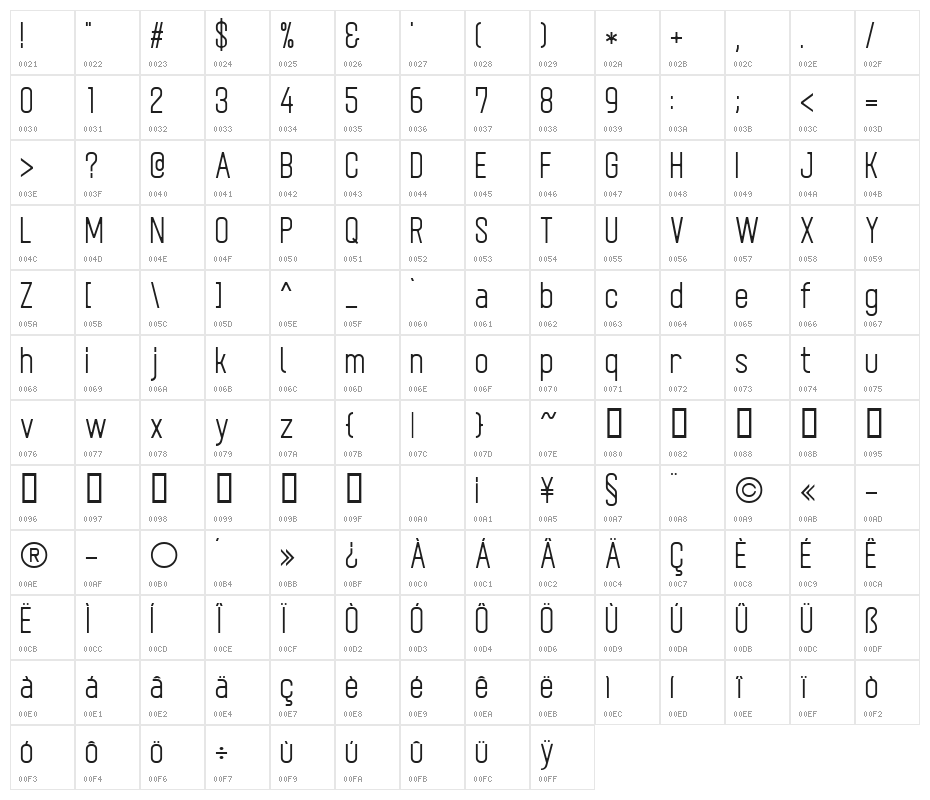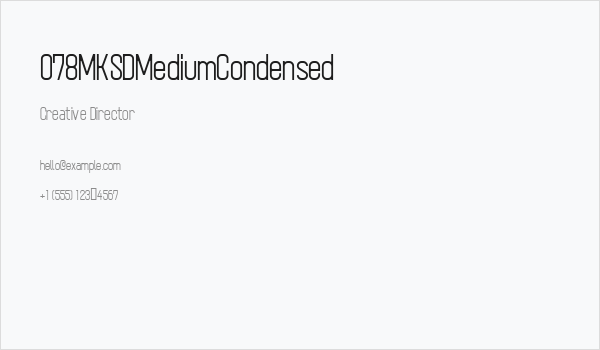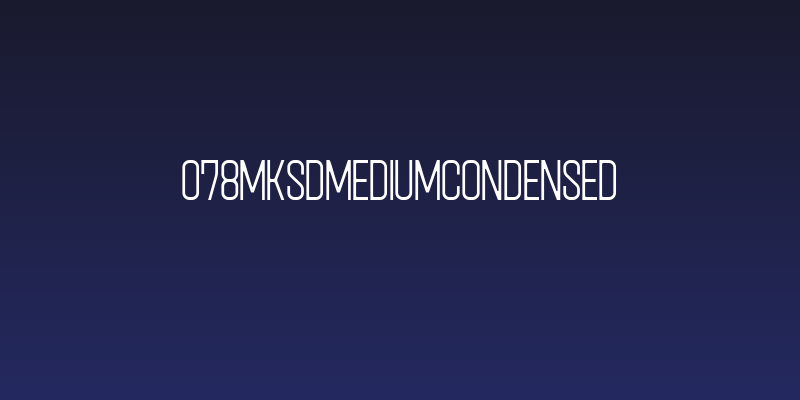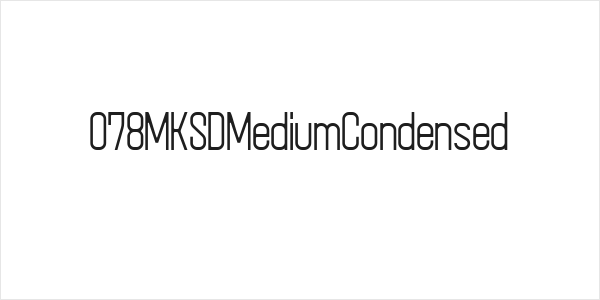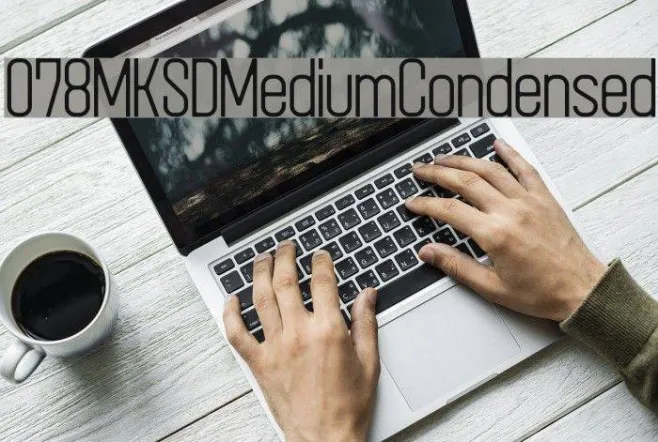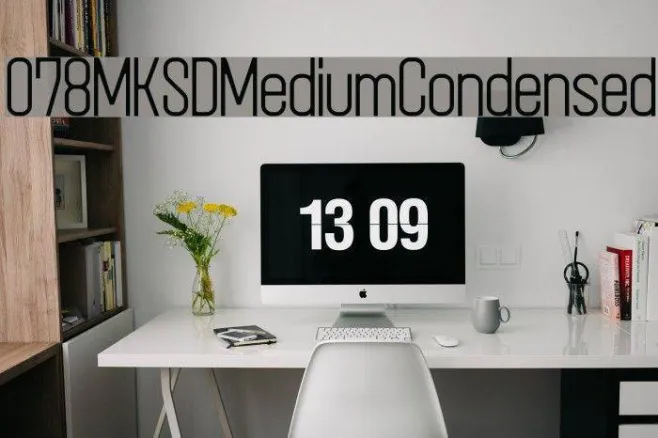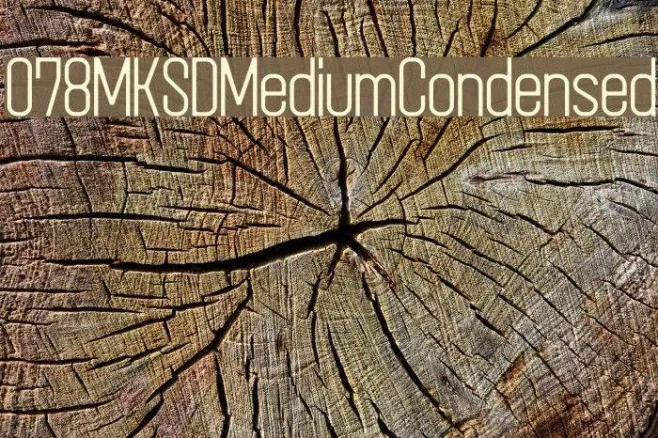
078MKSDMediumCondensed Font
078MKSDMediumCondensed Description
This font features a modern, geometric sans-serif style with a condensed width, giving it a sleek and efficient appearance. The characters are uniform in stroke width, contributing to a clean and minimalist aesthetic. The uppercase letters are tall and narrow, while the lowercase letters maintain a consistent height, enhancing readability. The numerals are distinct and align well with the overall design, making them suitable for various applications. Special characters are included, maintaining the same geometric style, ensuring versatility in design projects.
| Proposed Projects | Ideal for branding, editorial design, posters, and digital interfaces where a modern and clean look is desired. |